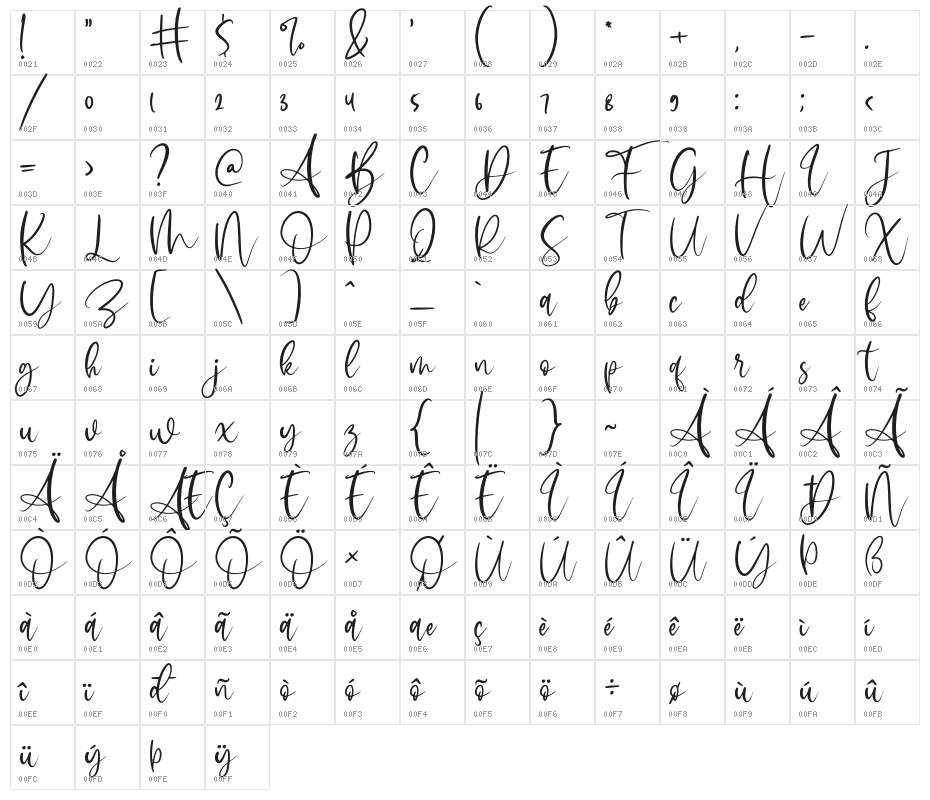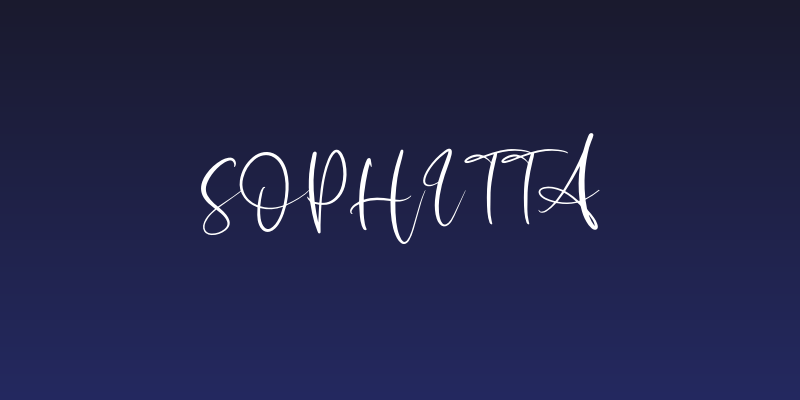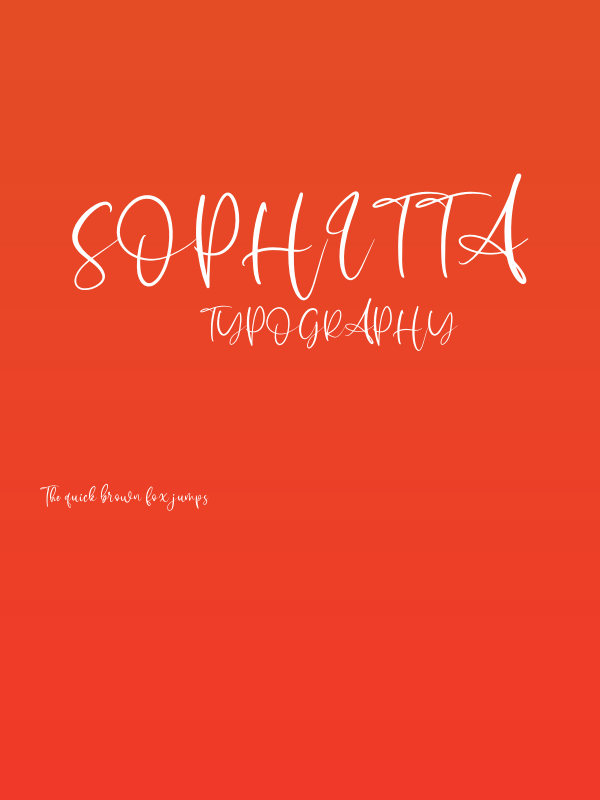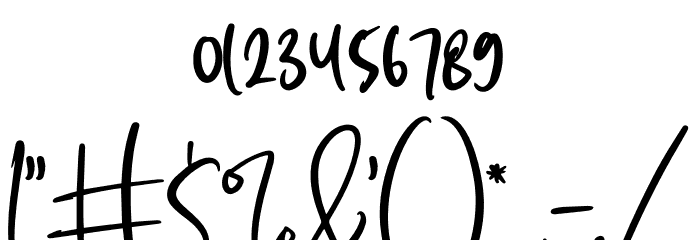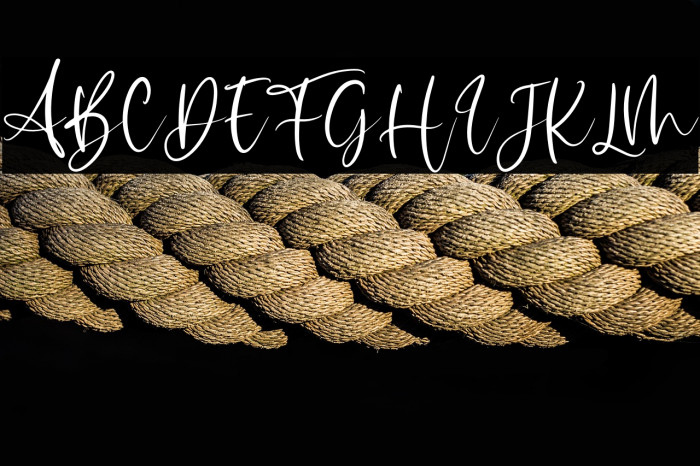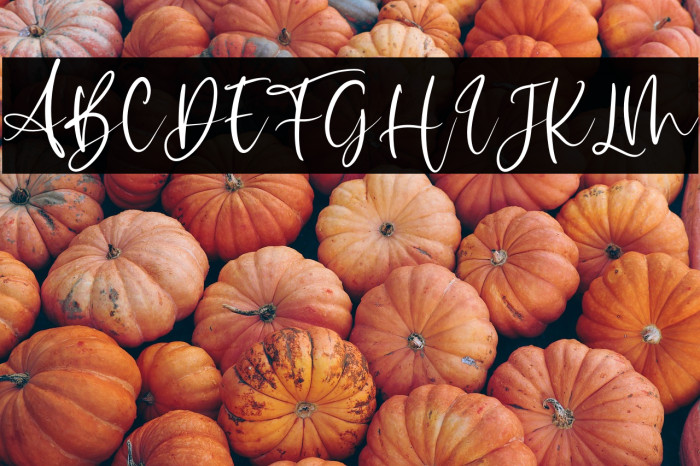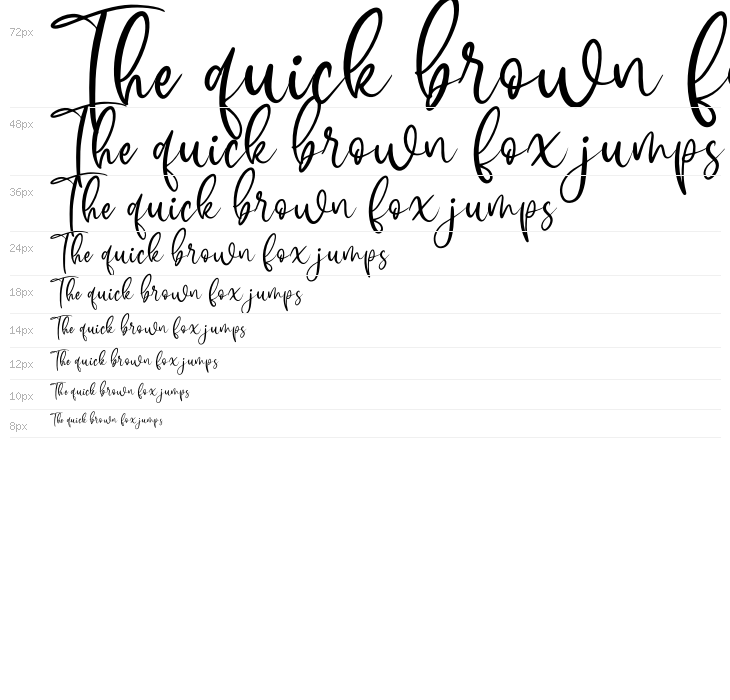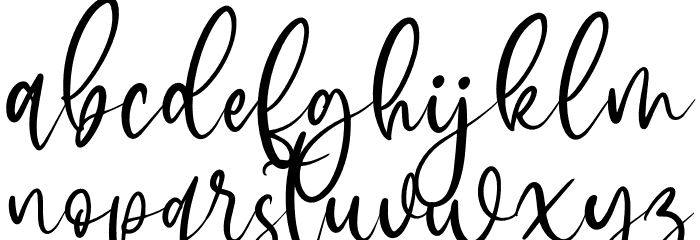
Sophitta Font
Sophitta Description
This font exudes a playful and elegant handwritten style, characterized by its fluid and cursive letterforms. The uppercase letters are tall and slender, with a graceful flow that connects each character seamlessly. The lowercase letters maintain a consistent rhythm, featuring loops and swirls that add a whimsical touch. The numerals are clear and legible, complementing the overall aesthetic. Special characters are creatively designed, maintaining the font's cohesive style. This font's charm lies in its ability to convey a sense of personality and warmth, making it ideal for projects that require a personal touch.
| Use Case | Logos, Invitations, Social Media |
| Proposed Projects | Ideal for wedding invitations, greeting cards, branding, and social media graphics. |